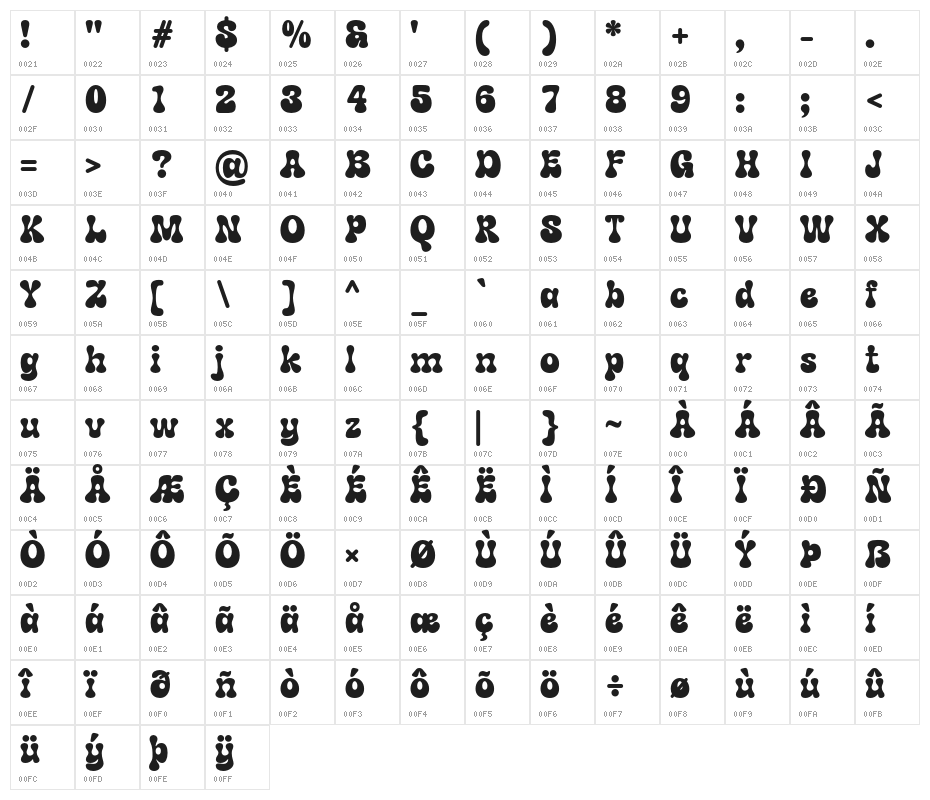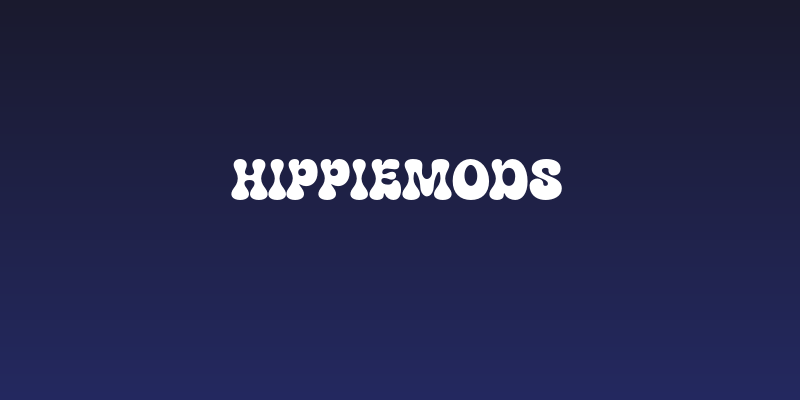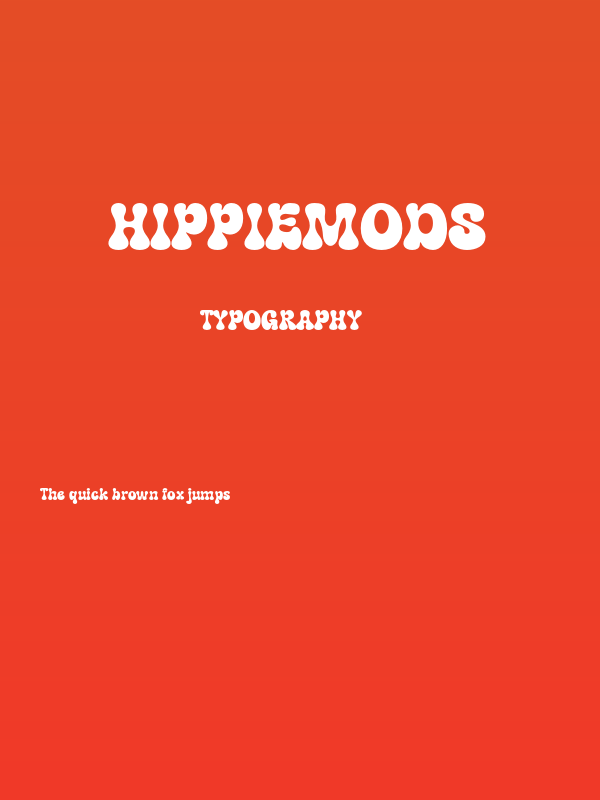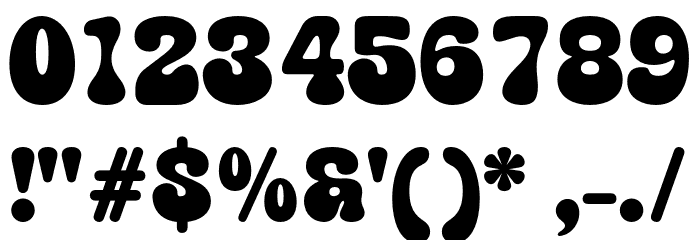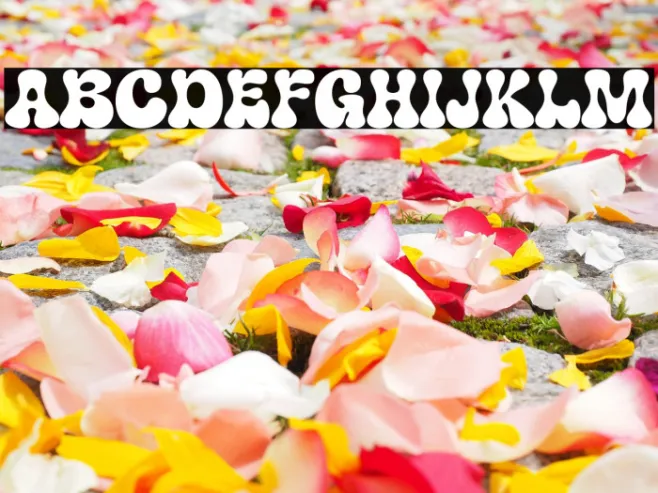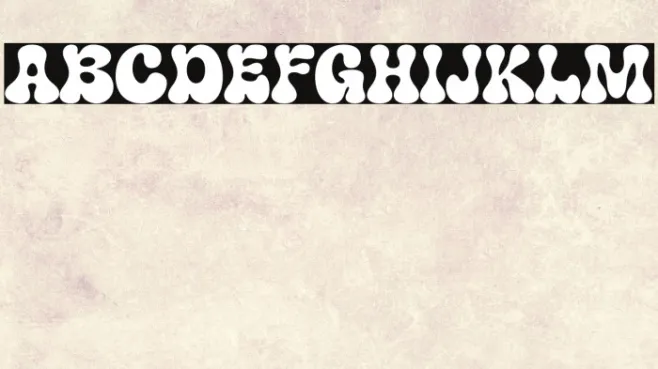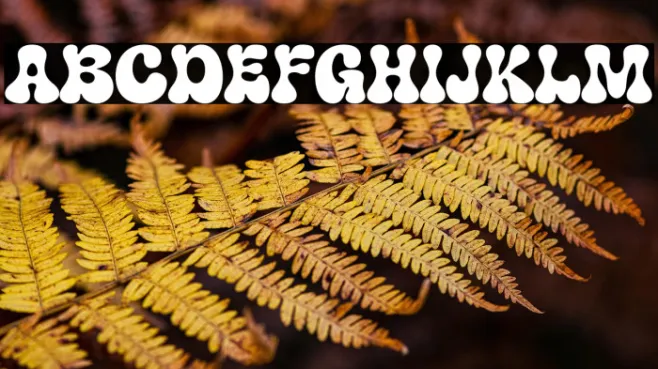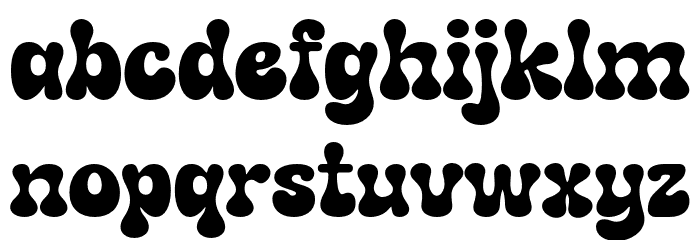
HippieMods Font
HippieMods Description
This font exudes a playful and retro vibe, characterized by its bold, rounded forms and bubbly appearance. The letters are thick and have a whimsical, almost cartoonish quality, reminiscent of 1960s and 1970s design aesthetics. The exaggerated curves and soft edges give it a friendly and approachable feel, making it ideal for projects that aim to capture a sense of nostalgia or fun. The numbers and special characters maintain the same playful style, ensuring consistency across all text elements.
| Proposed Projects | Ideal for retro-themed posters, children's book covers, playful branding, and event invitations. |